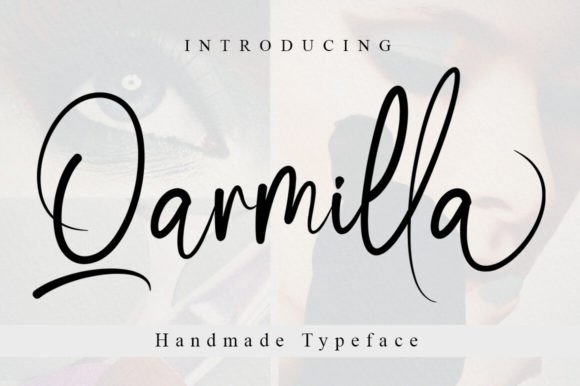
Introducing Qarmilla Font, the ultimate script font that will elevate your designs to new heights. Created by monolinecalligraphy, this exquisite handwritten font combines classic calligraphic influences with a contemporary and fresh feel. It's time to fall in love with Qarmilla and take your projects to the highest levels of creativity!
With its captivating and artistic design, Qarmilla Font is the perfect choice for designers who want to make a lasting impression. Whether you're working on logos, invitations, posters, or any other creative project, this font will add a touch of elegance and sophistication.
What sets Qarmilla Font apart is its versatility and ability to evoke emotions. It effortlessly captures the essence of beauty and grace, making it ideal for wedding invitations, romantic quotes, and feminine branding. The flowing strokes and delicate details of this font will leave a lasting impact on anyone who sees it.
But Qarmilla Font is not just about style, it also offers practicality and convenience. Thanks to its PUA encoding, accessing all glyphs and ligatures has never been easier. This means you have endless possibilities to explore and customize your designs, giving you the freedom to create something truly unique.
Imagine the possibilities with Qarmilla Font. Create stunning wedding stationery that will make every couple's special day even more memorable. Design eye-catching social media graphics that will capture the attention of your audience. Craft elegant packaging for your products that will leave a lasting impression on your customers.
Incorporating Qarmilla Font into your designs is like adding a touch of magic. It brings your words to life, making them more than just letters on a page. It evokes emotions, tells stories, and leaves a lasting impression. It's the missing piece that will take your designs from good to extraordinary.